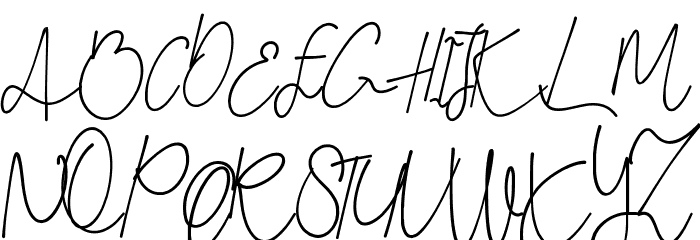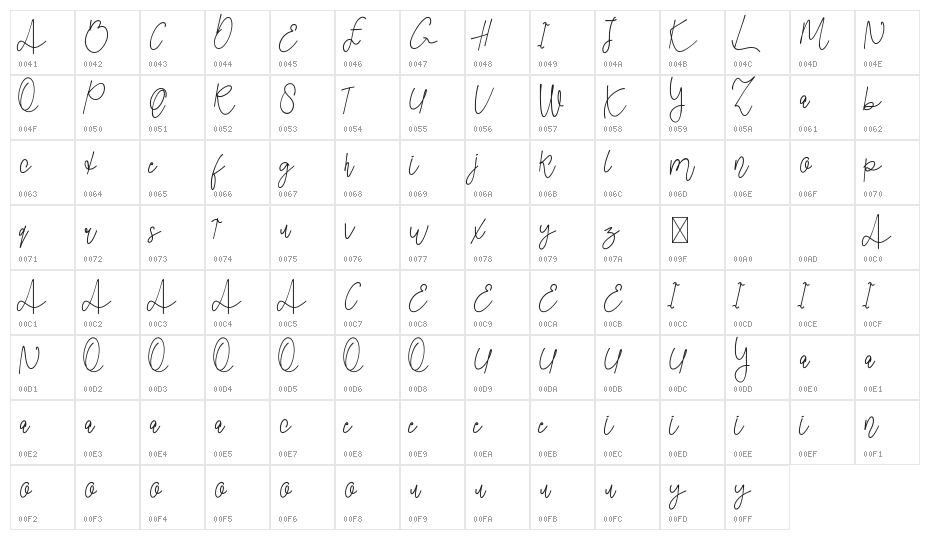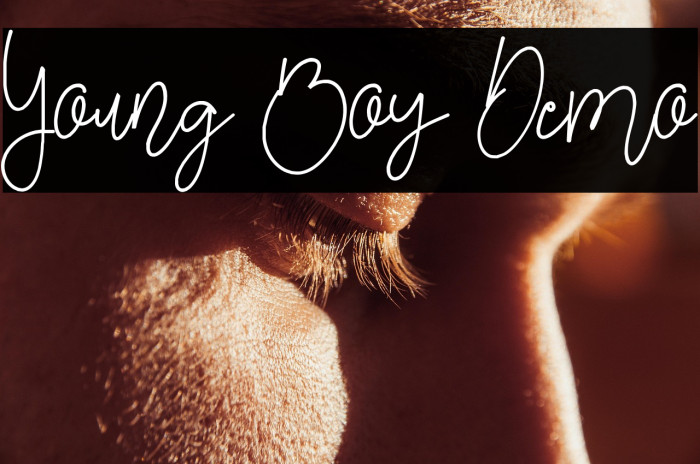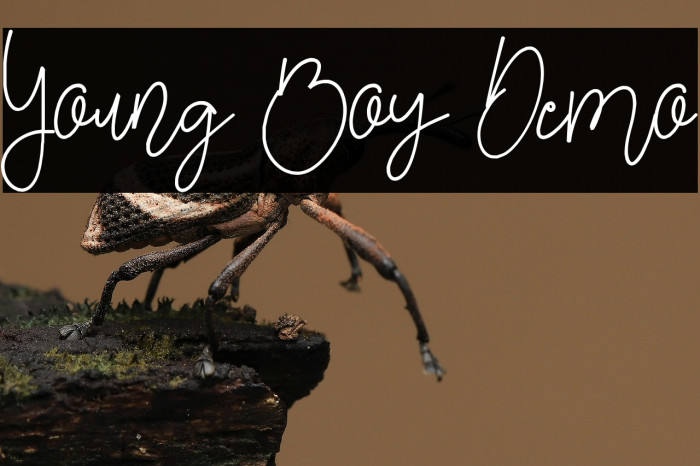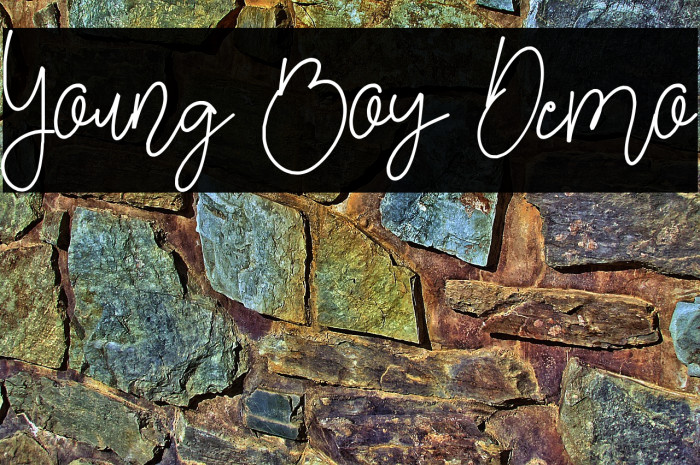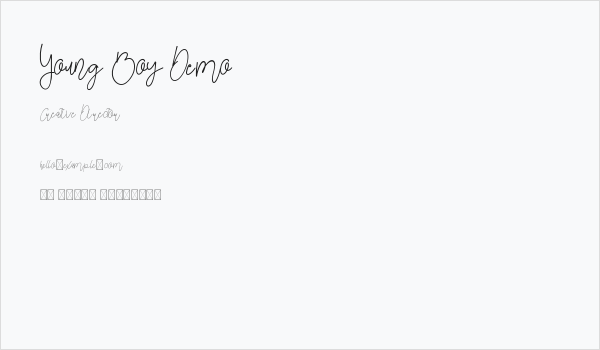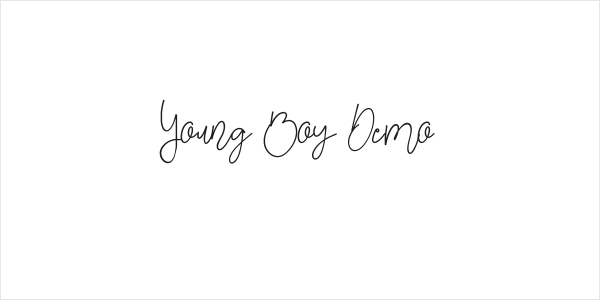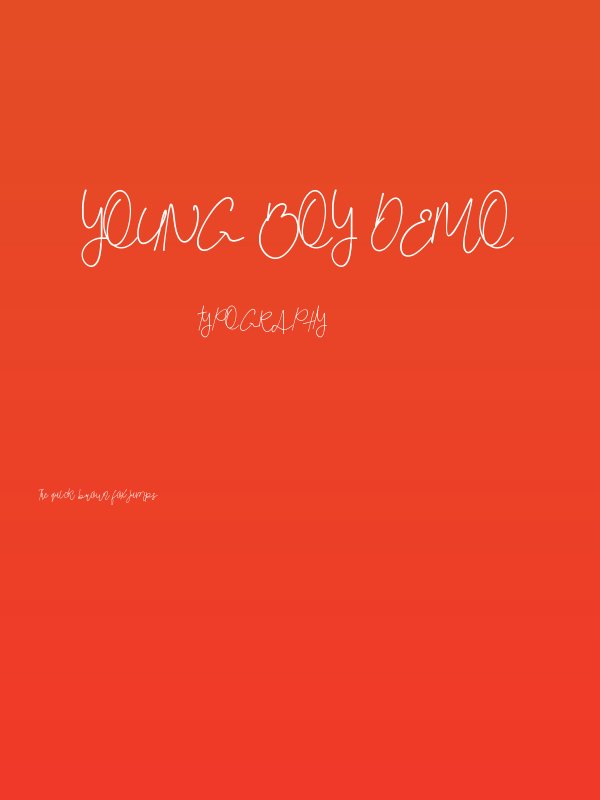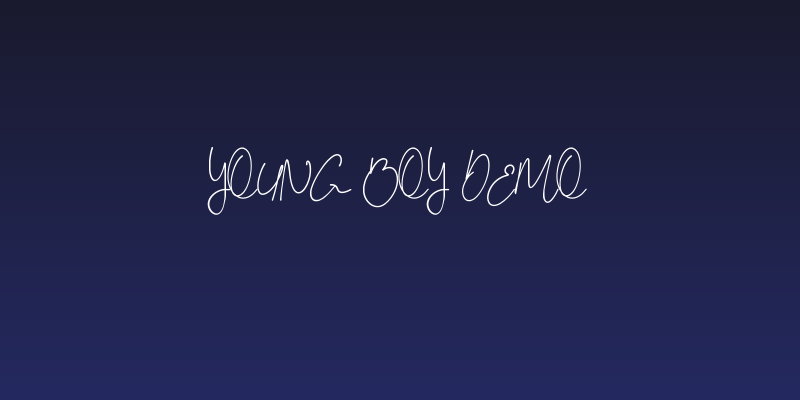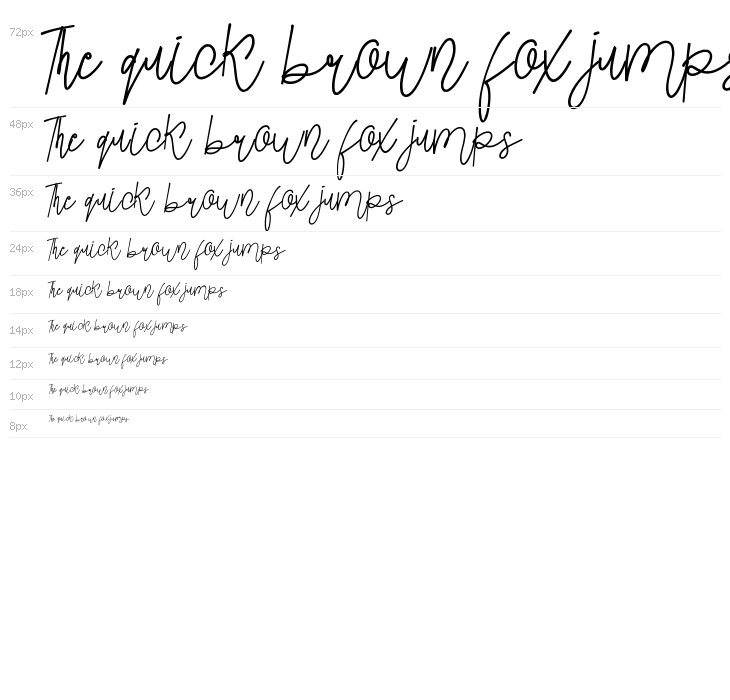
Young Boy Demo Font
Young Boy Demo Description
This font features a playful and energetic handwritten style, characterized by its fluid, cursive strokes and a casual, informal appearance. The letters are connected in a flowing manner, giving it a sense of movement and spontaneity. The uppercase and lowercase letters maintain a consistent style, with loops and curves that add a whimsical touch. The font's thin lines and varying stroke widths create a dynamic and lively feel, making it suitable for creative and artistic projects. Its unique personality makes it stand out, offering a fresh and youthful vibe.
| Proposed Projects | Ideal for greeting cards, invitations, personal branding, and creative social media graphics. |